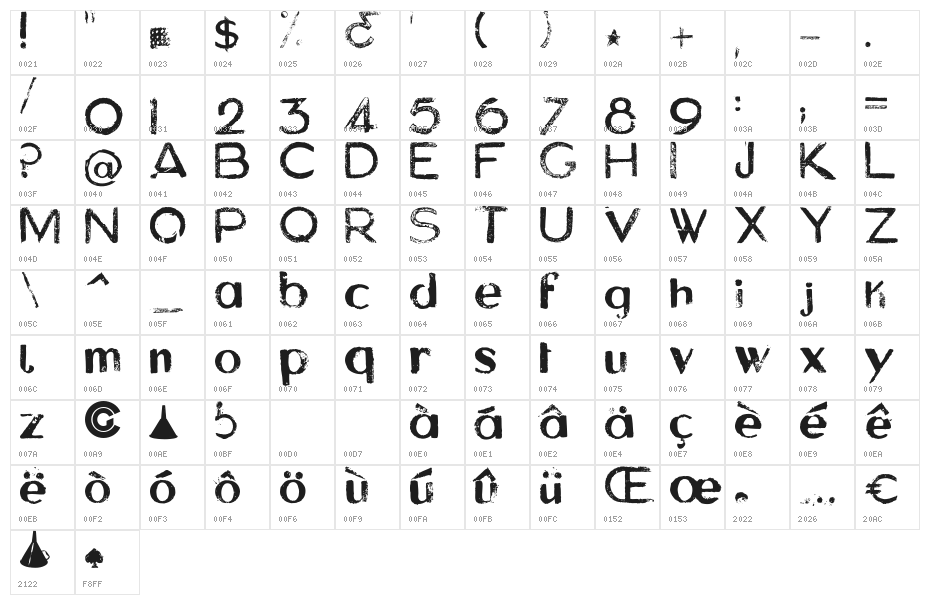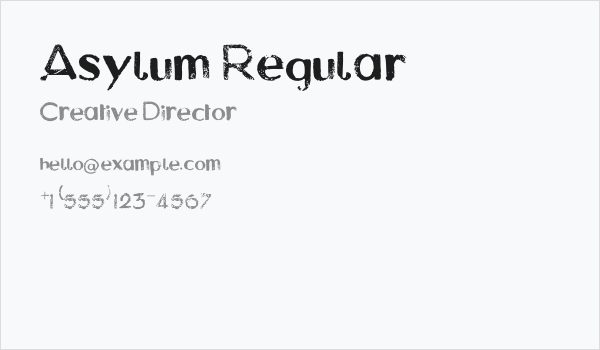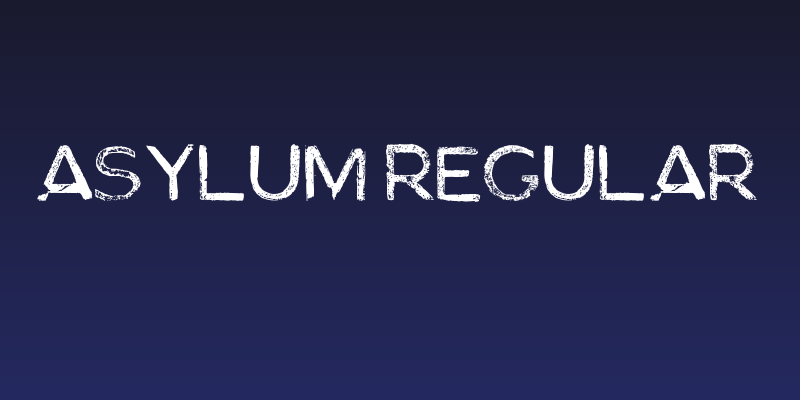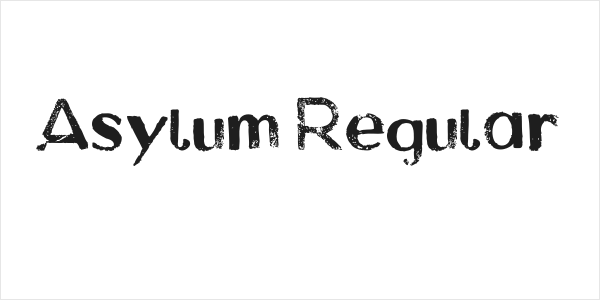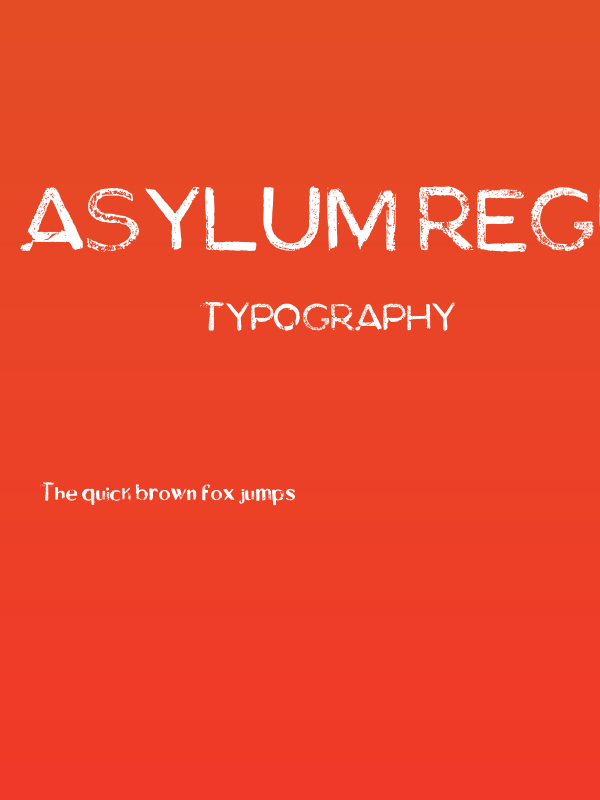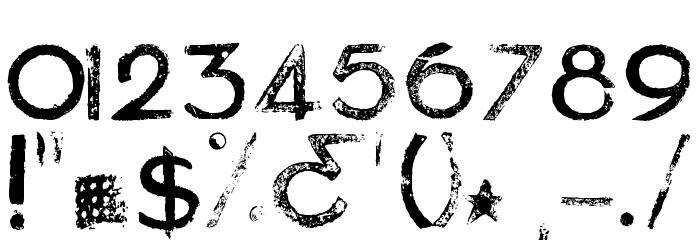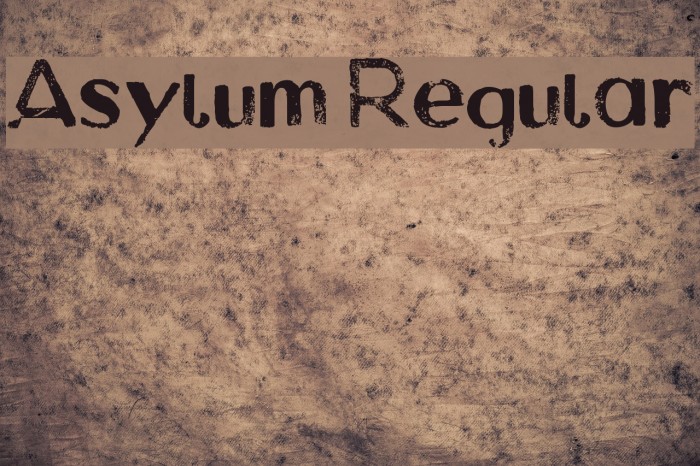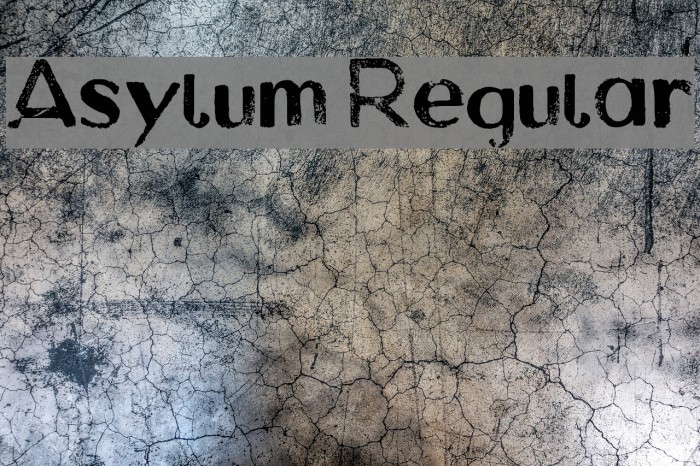
Asylum Regular Font
Asylum Regular Description
This font features a distressed, grunge aesthetic with a rough texture that gives it a worn and weathered appearance. The characters are bold and have an irregular, hand-crafted look, adding a sense of edginess and unpredictability. The uppercase and lowercase letters maintain a consistent style, with jagged edges and uneven strokes that contribute to its unique character. Numbers and special characters follow the same design principles, ensuring a cohesive look throughout. This font is ideal for projects that require a bold statement or an artistic touch, such as album covers, posters, or branding for edgy or alternative products.
| Overall Style | Grunge, Artistic |
| Use Case | Headlines, Logos, Artistic projects |
| Proposed Projects | Album covers, posters, branding for alternative products, artistic projects. |